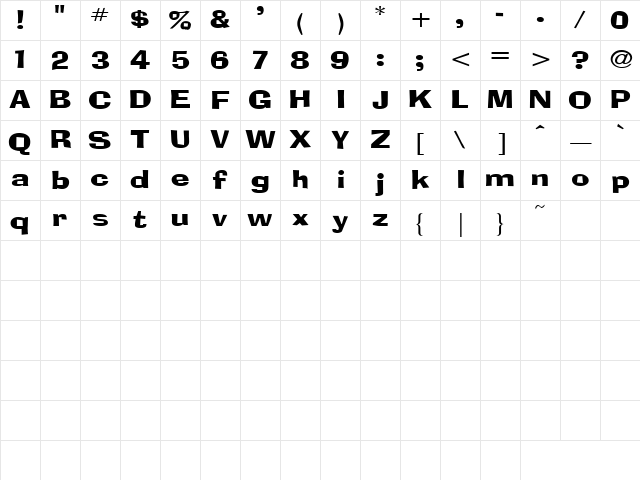
Cherry Bomb 2 Regular
Design Context for Cherry Bomb 2
Cherry Bomb 2 is a composed and adaptable typeface that performs quietly and consistently across a wide range of design contexts.
Pro Tip: Use Cherry Bomb 2 in both headline and body roles to test its range before committing to a single application.